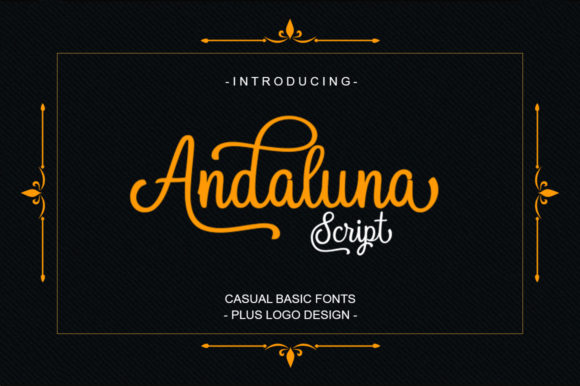
Andaluna Font: Elevate Your Designs with Elegance
Are you looking for a font that exudes elegance and sophistication? Look no further than the Andaluna Font. This beautiful, handwritten font is carefully crafted to become a true favorite among designers and crafty enthusiasts alike. With its unique and refined style, Andaluna is perfect for a wide range of design projects, from branding and headings to wedding designs, invitations, signatures, logos, labels, and more.
The Story Behind Andaluna Font
The Andaluna Font is designed with love and care to bring a touch of elegance to your designs. Its creator aimed to craft a font that would be both beautiful and versatile, suitable for various design projects. The result is a stunning handwritten font that is sure to impress.
Key Features of Andaluna Font
Handcrafted with Love
Andaluna Font is a carefully handcrafted font, ensuring that every letter and curve is unique and of high quality.
Elegant and Refined
This font boasts an elegant and refined style, making it perfect for designs that require a touch of sophistication.
Versatile and Multi-Purpose
Andaluna Font is suitable for a wide range of design projects, including branding, headings, wedding designs, invitations, signatures, logos, labels, and more.
Use Cases for Andaluna Font
Branding
Use Andaluna Font to create stunning brand identities that exude elegance and sophistication.
Wedding Designs
Make your wedding designs, such as invitations and wedding cards, truly special with this beautiful font.
Headings and Titles
Add a touch of elegance to your headings and titles with Andaluna Font, perfect for use in magazines, blogs, and more.
Signatures and Logos
Create unique and memorable signatures and logos with Andaluna Font, perfect for businesses and individuals alike.
Labels and Packaging
Elevate your labels and packaging designs with Andaluna Font, adding a touch of sophistication to your products.
Why Choose Andaluna Font?
Unique and Exclusive
Andaluna Font is a unique and exclusive font that will set your designs apart from the rest.
High-Quality Design
This font is designed with high-quality and attention to detail, ensuring that your designs look professional and polished.
Tips for Using Andaluna Font
Pair with Other Fonts
Experiment with pairing Andaluna Font with other fonts to create stunning font combinations.
Adjust Font Size and Style
Adjust the font size and style to suit your design needs, ensuring that Andaluna Font is used to its full potential.
Use in Combination with Images
Use Andaluna Font in combination with images to create visually appealing designs that capture attention.
In conclusion, the Andaluna Font is an elegant and versatile font that is perfect for designers and crafty enthusiasts looking to elevate their designs. With its unique and refined style, Andaluna Font is suitable for a wide range of design projects, from branding and headings to wedding designs, invitations, signatures, logos, labels, and more. Its high-quality design, ease of use, and exclusive style make it a must-have font for any designer.